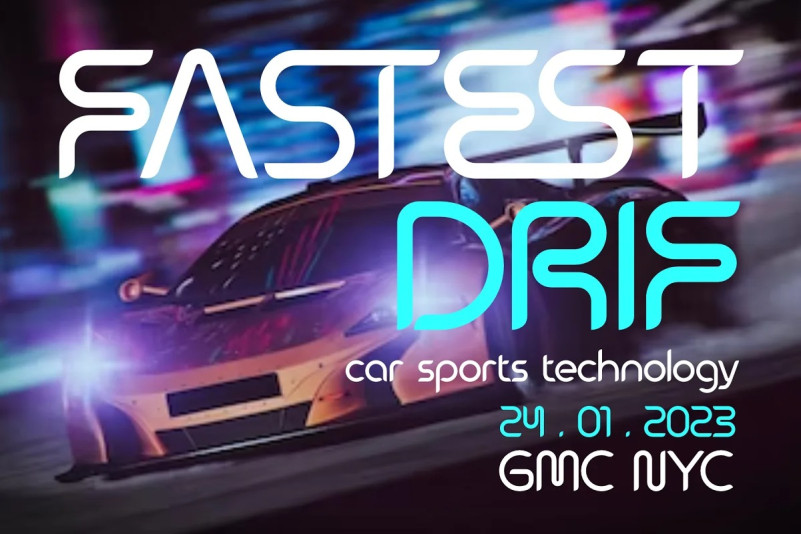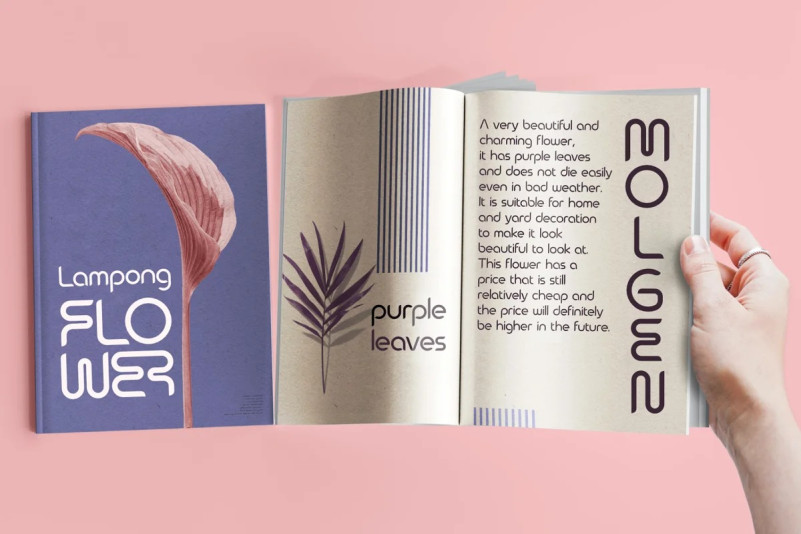
Qebram Font
Qebram Display Font is a custom font for your logo & branding. This font is a very strong and excellent branding font that can be used in any company that wants to make its image look modern and high-tech because every character is designed for a good logo. So let’s create your own logo with this font.